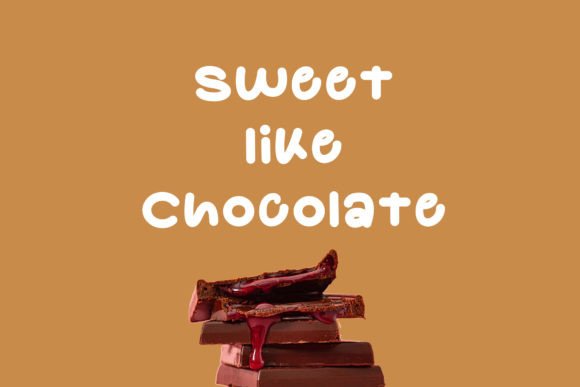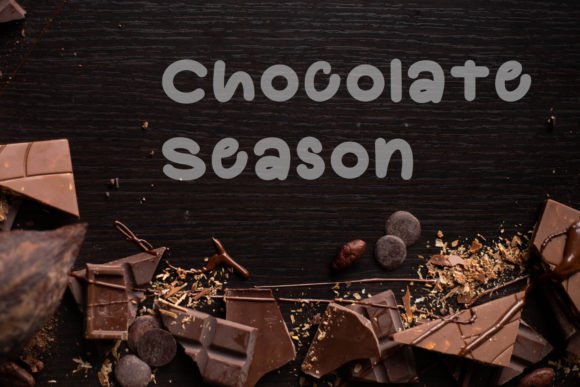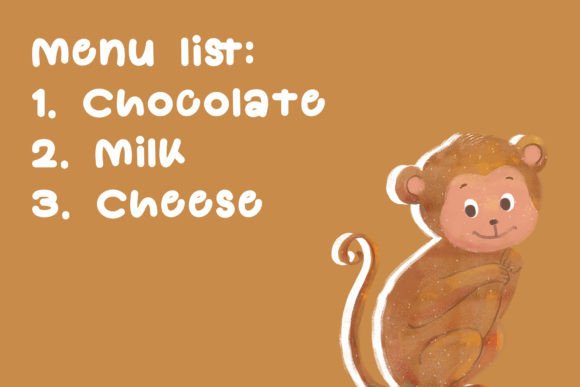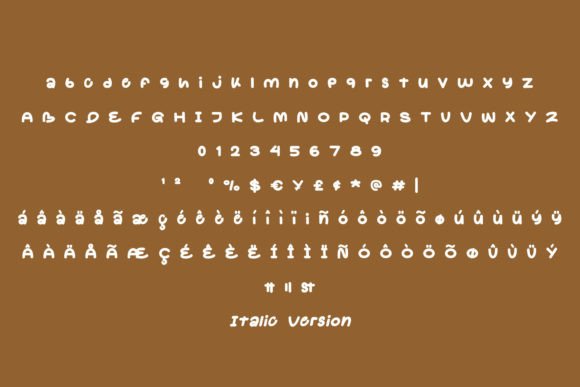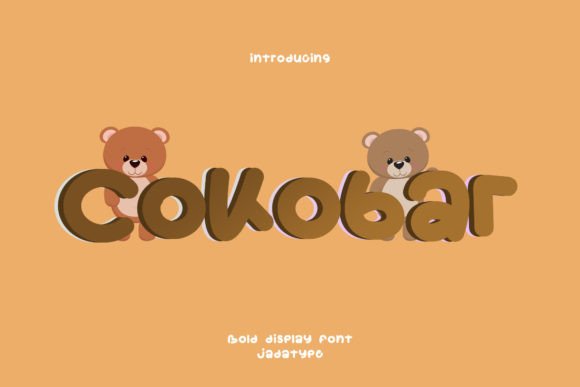
Cokobar Font: The Ultimate Bold Display Font for Creative Projects
Are you a designer, crafter, or social media enthusiast looking for a bold and playful font to elevate your visual projects? Look no further than Cokobar Font! This exciting display font is perfect for making a statement, and its versatility makes it suitable for a wide range of applications, from social media graphics to branding, crafting, product design, comic books, and more.
What is Cokobar Font?
Cokobar Font is a bold display font that exudes a playful and energetic vibe. Its unique design makes it stand out from more traditional fonts, adding a touch of whimsy and fun to any project. Whether you’re creating a social media post, a brand logo, or a craft project, Cokobar Font is sure to grab attention and leave a lasting impression.
Key Features of Cokobar Font
• Bold and Playful Style: Cokobar Font boasts a bold and playful style that’s perfect for making a statement.
• Versatile: This font is suitable for a wide range of projects, including social media graphics, branding, crafting, product design, comic books, and more.
• Easy to Read: Despite its bold style, Cokobar Font is easy to read, making it perfect for headlines, titles, and short paragraphs.
• Unique Design: Cokobar Font’s unique design sets it apart from more traditional fonts, adding a touch of personality to any project.
Use Cases for Cokobar Font
Cokobar Font is an incredibly versatile font that can be used in a variety of contexts. Here are some ideas to get you started:
• Social Media Graphics: Use Cokobar Font to create eye-catching social media graphics that grab attention and drive engagement.
• Branding: Cokobar Font is perfect for creating bold and memorable brand logos that stand out from the crowd.
• Crafting and DIY Projects: Add a touch of personality to your crafting and DIY projects with Cokobar Font.
• Product Design: Use Cokobar Font to create bold and eye-catching product labels, packaging, and marketing materials.
• Comic Books and Graphic Novels: Cokobar Font is perfect for creating bold and dynamic comic book titles, headings, and text.
Tips for Using Cokobar Font
Here are some tips for getting the most out of Cokobar Font:
• Use it Sparingly: Cokobar Font is bold and attention-grabbing, so use it sparingly to avoid overwhelming your design.
• Pair it with Other Fonts: Experiment with pairing Cokobar Font with other fonts to create a unique and visually appealing design.
• Experiment with Colors: Cokobar Font looks great in a variety of colors, so don’t be afraid to experiment and find the perfect hue for your design.
Cokobar Font is a bold and playful display font that’s perfect for designers, crafters, and social media enthusiasts looking to add a touch of personality to their visual projects. Its versatility, unique design, and ease of use make it an excellent choice for a wide range of applications. Whether you’re creating social media graphics, branding materials, crafting projects, or comic books, Cokobar Font is sure to make a statement and leave a lasting impression.